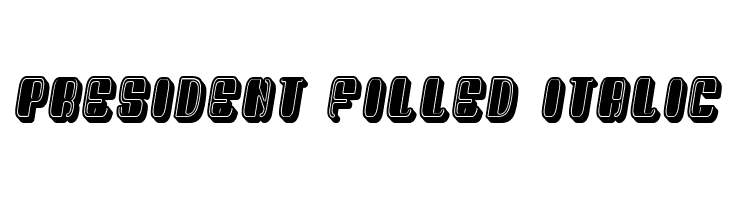
• President Filled Italic caratteri
Bold, filled, italic font with thick outlines and a modern style.
• President Filled Regular caratteri
A bold, outlined font with a three-dimensional effect and geometric influence.
• President Italic caratteri
A bold, italic, 3D font with a modern and impactful style.
• President Regular caratteri
A bold, outlined font with a three-dimensional, retro style.